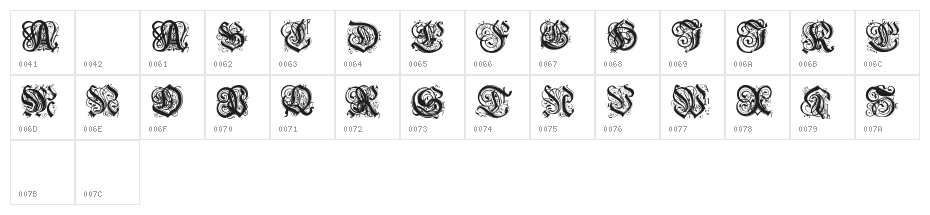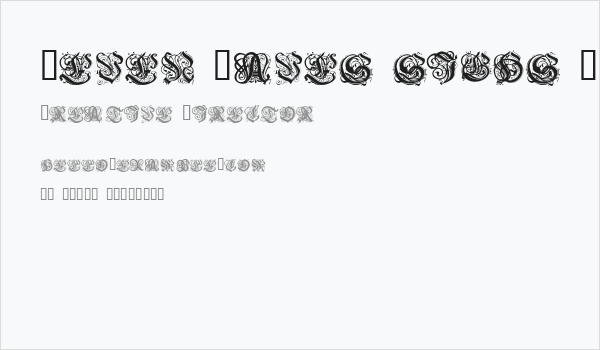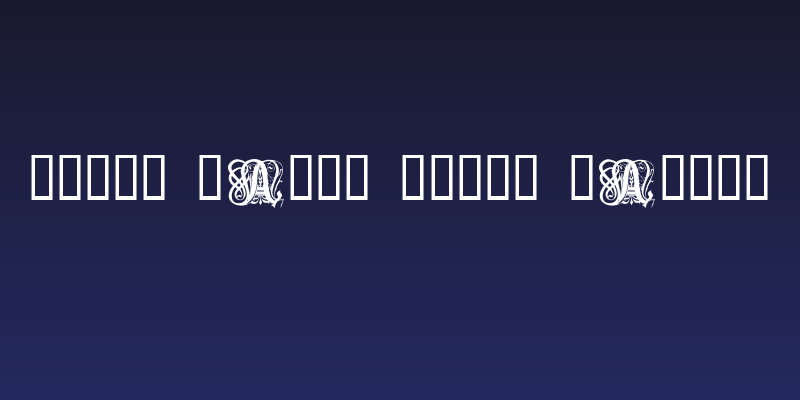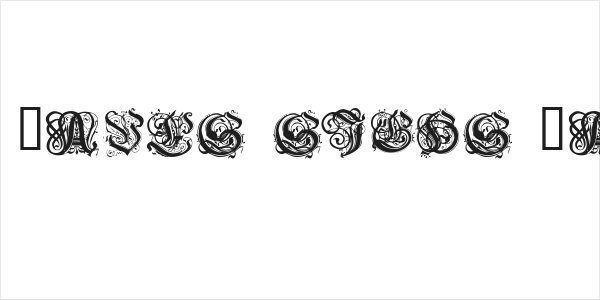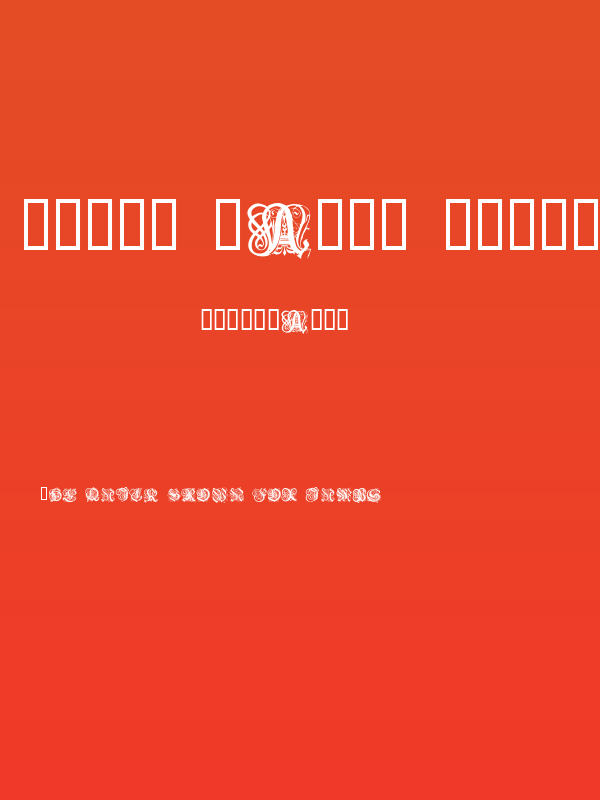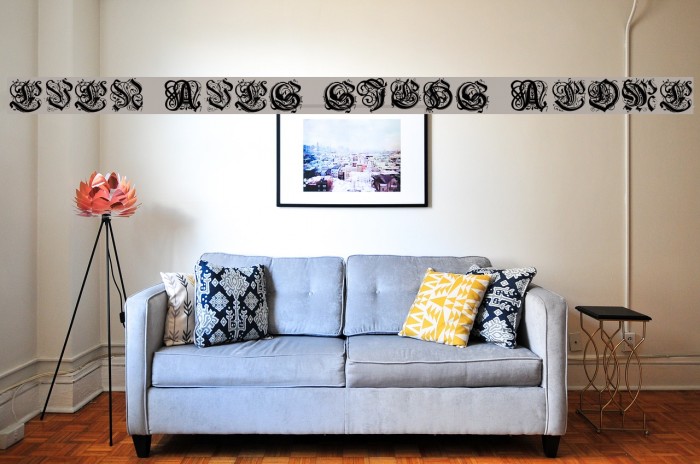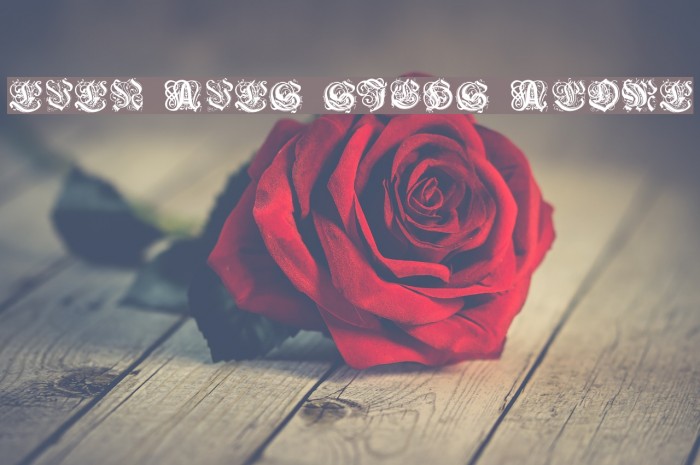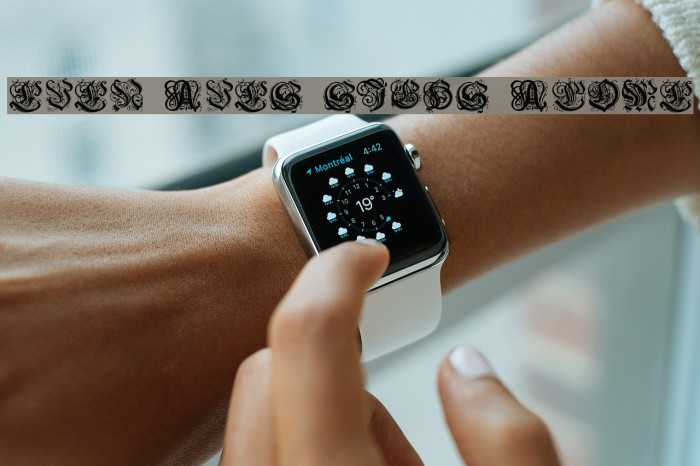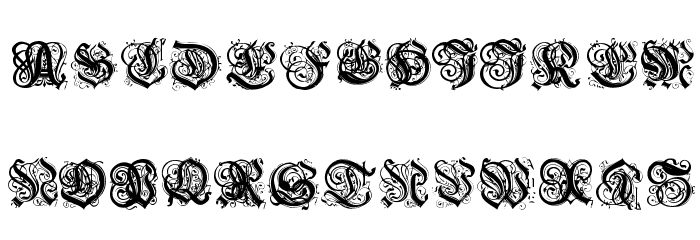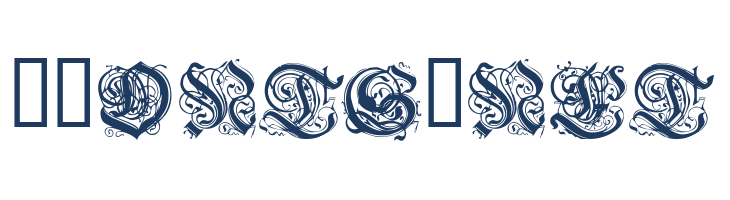
Seven Waves sighs Salome Font
Seven Waves sighs Salome Description
This font is a highly decorative and intricate typeface, characterized by its elaborate and ornate design. Each letter is adorned with flourishes and embellishments, giving it a regal and sophisticated appearance. The strokes are bold and pronounced, with a high contrast between thick and thin lines, enhancing its dramatic flair. The overall style is reminiscent of vintage or Gothic calligraphy, making it suitable for projects that require a touch of elegance and grandeur. The font's unique and artistic nature makes it stand out, capturing attention with its detailed craftsmanship.
| Overall Style | Vintage |
| Proposed Projects | Ideal for wedding invitations, luxury branding, historical themed designs, and decorative headings. |